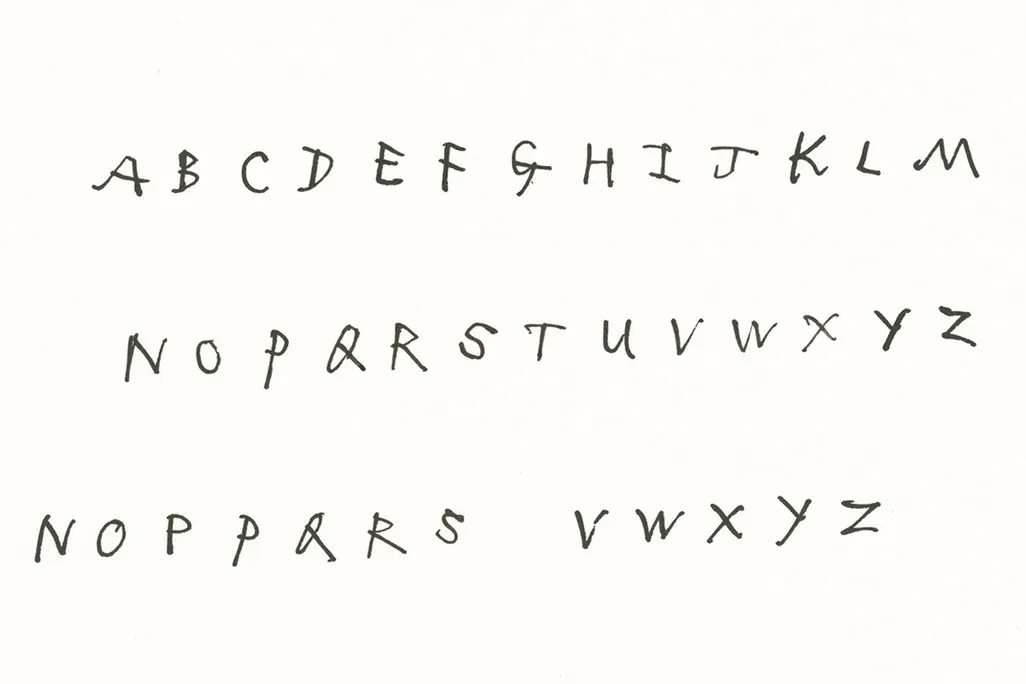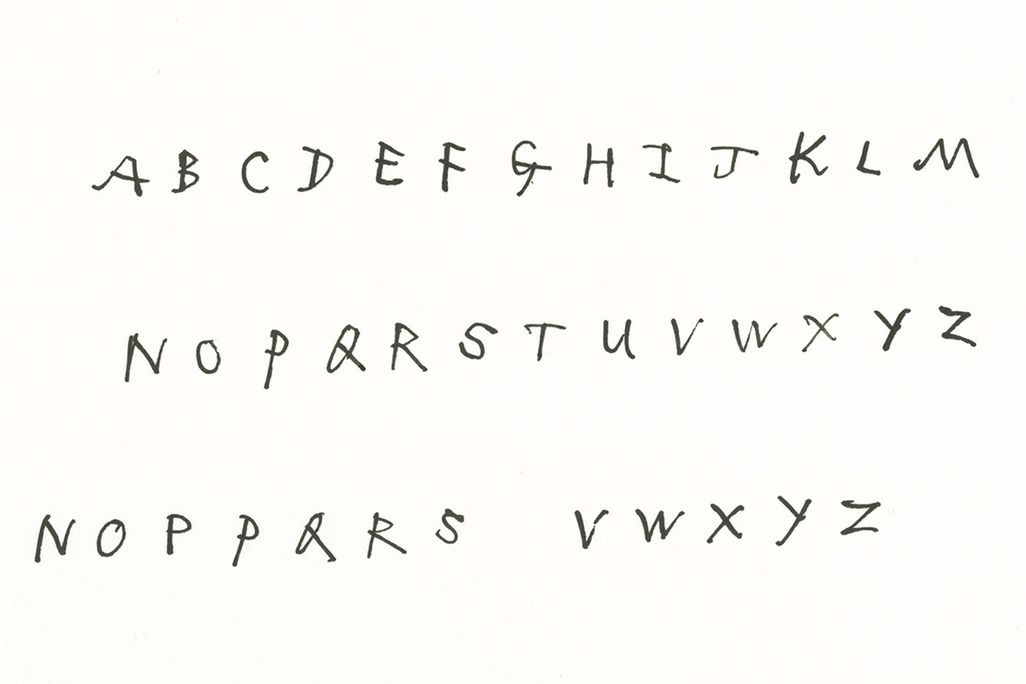
Roald Dahl’s Iconic Illustrator Inspired This New Font
Quentin Blake’s handwriting has elements of spontaneity and joy
By definition, it can be tough to turn handwriting into a standardized font without losing some signature style quirks. Graphic designers at the firm Monotype, however have developed a new font based on the handwriting of iconic illustrator Quentin Blake that almost does the trick. The font, "Quentin Blake," incorporates an element of chance into its character selection, in order to better evoke Blake's individual style.
Blake’s illustration is instantly recognizable—a longtime collaborator of celebrated author Roald Dahl, Blake brought to life many of Dahl’s most beloved books, having worked on everything from Charlie and the Chocolate Factory to The BFG. Like his scratchy style of drawing, Blake’s handwriting has elements of spontaneity and joy that makes it both distinct and difficult to replicate, Eva Recinos reports for PSFK.
Blake is 83 years old now, but his work remains in high demand. With television shows, movies and even mobile games based on his collaborations, Dahl is often asked to help with designs.
“Requests for different languages can be quite difficult if he’s not familiar with them,” Blake’s archivist Liz Williams tells Monotype for a case study on the new font. “He has to consider each letter carefully to make sure it’s right and that can detract from the natural flow.”
While Blake’s handwriting has been turned into a font before, the results didn’t quite mimic his natural flow. So, to incorporate some element of chance into the bespoke font, Monotype designer Toshi Omagari decided to use four slightly different versions of Blake’s writing in his model, making it so that a letter from one of the versions will be chosen at random for every keystroke, according to Blake's website.
“I didn’t want anything to look too unique, especially in the vowels which appear more frequently, because people would notice the ones that stand out, notice them repeated, and realise it’s a font,” Omagari tells Monotype. “It had to look random, and it had to hide the fact that it’s not his actual handwriting.”
The final effect is a font that looks less rigid and captures a bit more of Blake’s personality. The font can also be adjusted for where Blake’s writing will appear, adding a roughness filter if it is destined for print, or making it cleaner and smaller for the web or in an app.
Monotype’s new font is already being used in the Twit or Miss app game based on Dahl’s book The Twits, and features art based on Blake’s original illustrations, Recinos reports. But while this font gets pretty close to Blake's iconic penmanship, it still can't fully capture the charm and specificity of the imaginative illustrator's own playful hand.